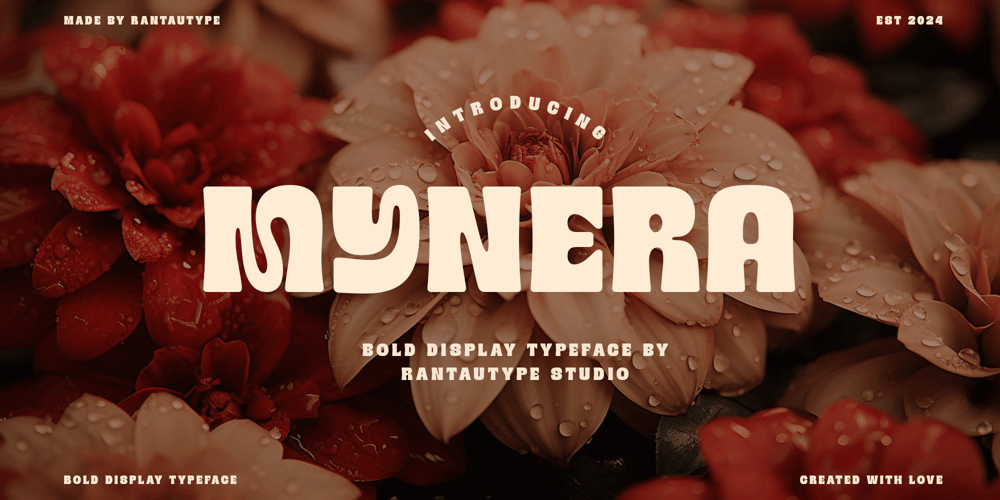
Mynera Font Family was designed by Yudi Pratama Chandra and published by RantauType. Mynera contains 2 styles and family package options. Mynera is display typeface with retro vibes. Mynera bring a sophisticated, bold and flow curve to make creative design project.Mynera is a perfectly choice for any creative endeavor, chic, lifestyle design such as logos, advertisements, watermark on photography, stationery, branding project, display and magazine, invitation, corporate brand, product design, label, business project and many other project with retro touch.What you have: Standart Glyphs Numberial and Functional Alternate and Ligature Works on PC & Mac Simple installations Accessible in Adobe Illustrator, Adobe Photoshop, Adobe InDesign, even work on Microsoft Word. Fonts include Multilingual Character for: Afrikaans, Albanian, Asu, Basque, Bemba, Bena, Breton, Chiga, Cornish, Dutch, English, Estonian, Filipino, Finnish, Friulian, Galician, Gusii, Indonesian, Irish, Italian, Kabuverdianu, Kalenjin, Kinyarwanda, Luo, Luxembourgish, Luyia, Machame, Makhuwa-Meetto, Makonde, Malagasy, Manx, Morisyen, North, Ndebele, Nyankole, Oromo, Portuguese, Quechua, Romansh, Rombo, Rundi, Rwa, Samburu, Sango, Sangu, Scottish, Gaelic, Sena, Shambala, Shona, Soga, Somali, Spanish, Swahili, Swedish, Swiss, German.Thank you for your purchase!Hope you enjoy with our font!